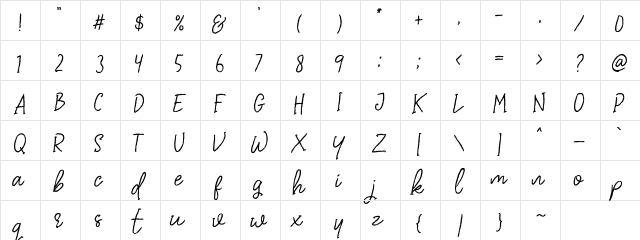
Dear Disya Standard
| Foundry | Sarid Ezra |
| Designer | Sarid Ezra |
Design Context for Dear Disya Typeface
Dear Disya is a composed and adaptable typeface that performs quietly and consistently across a wide range of design contexts.